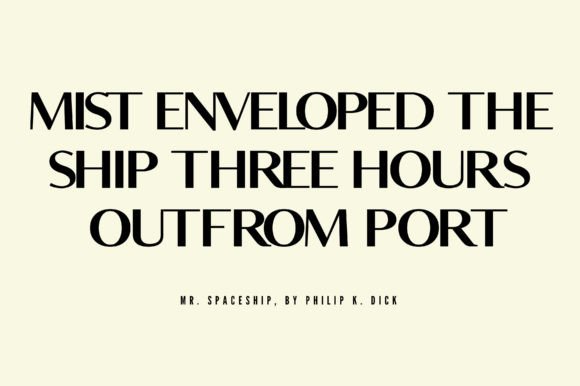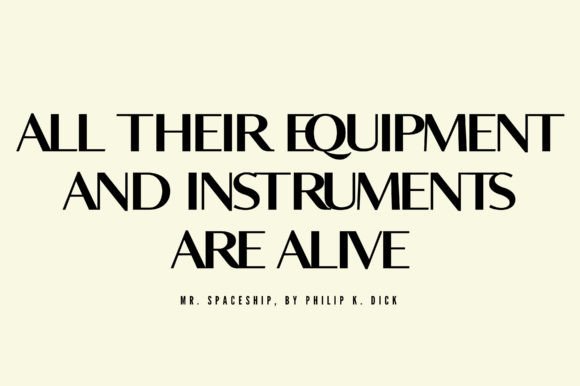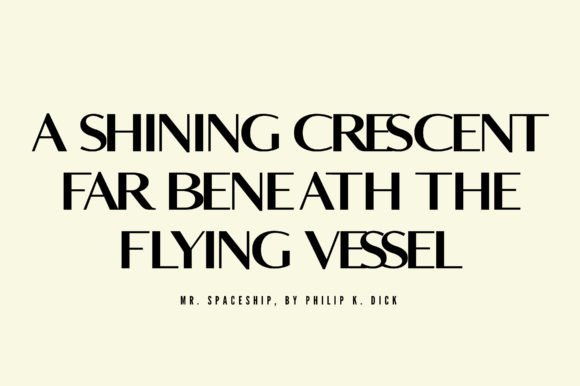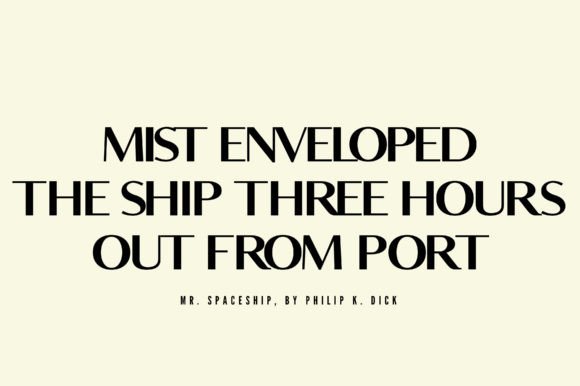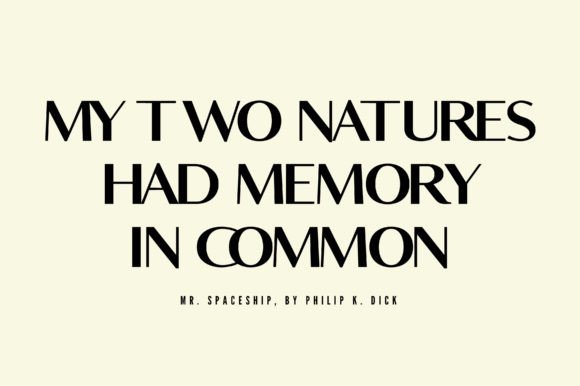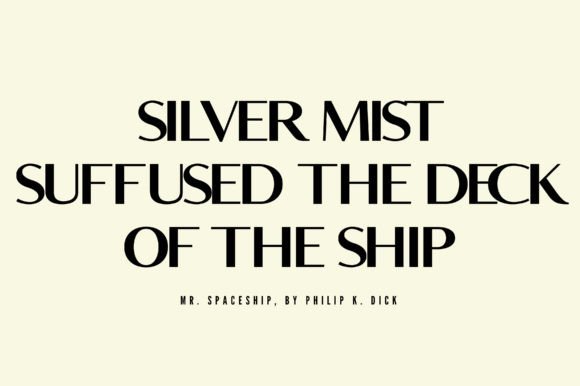
Introducing Boom Font: Elevate Your Designs with Timeless Elegance
In the world of typography, a well-crafted font can make all the difference in elevating your designs from ordinary to extraordinary. Meet Boom Font, a minimalist and elegant sans serif typeface that brings a touch of sophistication to your creative projects. With its clean lines, contemporary aesthetic, and refined letterforms, Boom is poised to become your go-to font for designs that demand attention and exude style.
The Essence of Boom Font
Boom Font is a masterclass in typographic design, boasting a sleek and modern sans serif style that effortlessly adapts to various design contexts. Its minimalist approach ensures that your message takes center stage, while the font’s elegant lines and curves add a layer of sophistication that’s hard to ignore. Whether you’re working on a branding project, website design, or print materials, Boom Font is the perfect choice for designers seeking a versatile and high-impact typeface.
Key Features of Boom Font
- Clean Lines and Contemporary Aesthetic: Boom Font’s design is characterized by its clean lines, simple shapes, and a contemporary aesthetic that makes it perfect for modern designs.
- Refined Letterforms: Each letterform in Boom Font has been crafted with precision to ensure legibility and visual appeal, making it easy to read and understand.
- Effortless Versatility: Boom Font seamlessly adapts to various design contexts, from digital interfaces to print materials, ensuring that your designs look great across different mediums.
- Timeless Elegance: Unlike trendy fonts that quickly go out of style, Boom Font’s classic design ensures that your designs remain timeless and relevant for years to come.
Why Choose Boom Font?
With so many fonts available, why should you choose Boom Font for your next project? Here are a few compelling reasons:
- Exceptional Legibility: Boom Font’s refined letterforms and careful spacing ensure that your text is easy to read, even at small sizes.
- Unique yet Versatile: While Boom Font has a distinct personality, it’s versatile enough to work well in a variety of design contexts, from headlines to body text.
- Easy to Pair: Boom Font pairs well with a wide range of fonts, making it easy to create harmonious and visually appealing typography.
Using Boom Font in Your Designs
So, how can you make the most of Boom Font in your designs? Here are a few tips:
- Headlines and Titles: Use Boom Font to create bold and eye-catching headlines that grab attention and make a lasting impression.
- Body Text: Boom Font’s legibility and readability make it an excellent choice for body text, ensuring that your readers can easily follow your message.
- Branding and Identity: Boom Font’s timeless elegance and sophistication make it an excellent choice for branding and identity projects, helping you establish a strong and memorable visual identity.
In conclusion, Boom Font is a game-changing typeface that brings a touch of sophistication and elegance to your designs. With its clean lines, contemporary aesthetic, and refined letterforms, Boom Font is the perfect choice for designers seeking a versatile and high-impact font. Whether you’re working on a branding project, website design, or print materials, Boom Font is sure to elevate your designs and leave a lasting impression.